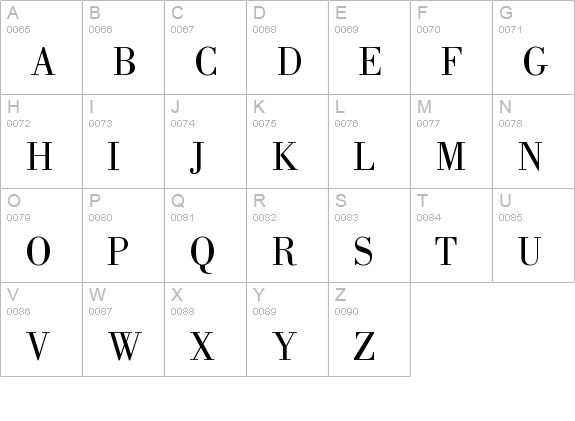
Bodoni Book SSi Book Font Details
Bodoni Book SSi Book is a comfortable, highly readable variant in the Bodoni typeface family \xE2\x80\x94 well suited to long-form body text, articles, and editorial content.
Bodoni Book SSi Book font is a timeless and elegant typeface that exudes sophistication and style. With its classic serifs and clean lines, this font is perfect for adding a touch of refinement to any project. Its versatility makes it suitable for a wide range of design applications, from branding and advertising to editorial and web design. What sets Bodoni Book SSi Book font apart is not only its aesthetic appeal but also its accessibility. This font is available for free download at FontsMarket.com, making it easily accessible to designers and creatives looking to elevate their work with a touch of classic elegance. Whether you're designing a logo, creating a poster, or crafting a website, Bodoni Book SSi Book font is sure to make a statement and leave a lasting impression.